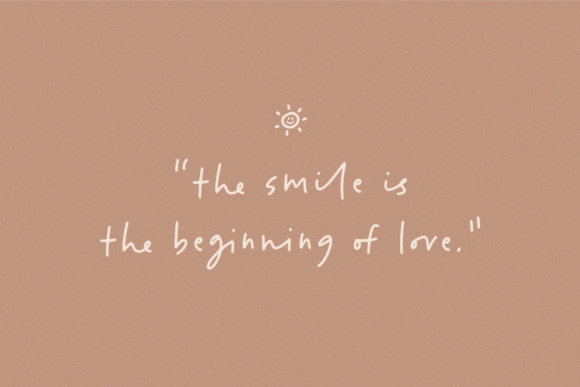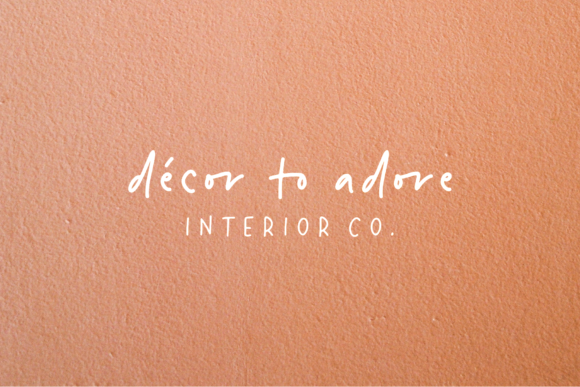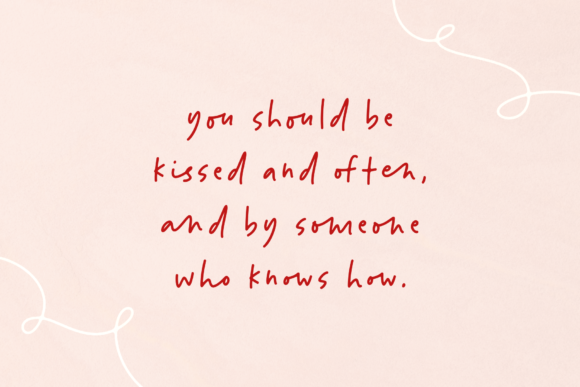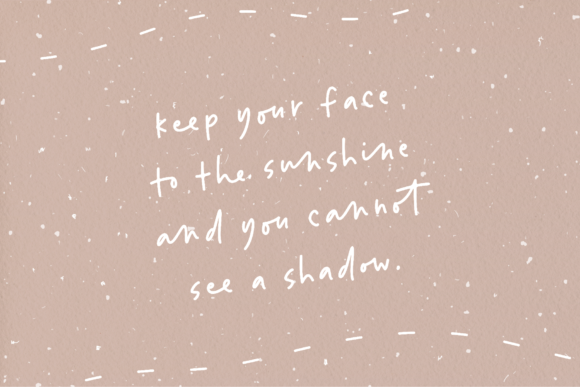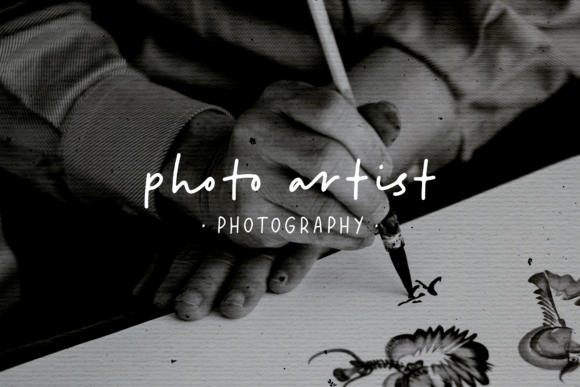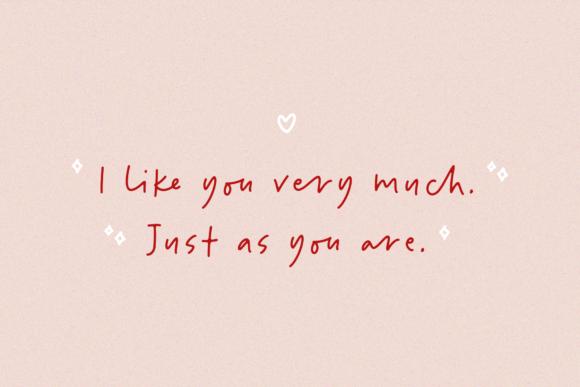
Monday Mornings Made Brighter with the Cheerful Monday Font
Do you remember those early mornings spent brainstorming ideas for your next creative project? The ones where the coffee is still brewing and the world outside is quiet, but your imagination is already racing with possibilities? That’s the perfect moment to bring out the Cheerful Monday Font.
This charming handwritten font is designed to add a touch of warmth and personality to your designs. Whether you’re working on a cartoon, children’s game, or any other project that needs a bit of love, the Cheerful Monday Font is the perfect choice. Its natural, sweet style makes it a valuable tool for designers looking to add a unique and cheerful feel to their work.
Cheerful Monday Font Key Features
- Unique Characteristics: Cheerful Monday Font features a unique blend of modern and vintage elements, giving it a distinctive and eye-catching look.
Design Review: Cheerful Monday Font
I’ve had the chance to work with the Cheerful Monday Font, and I must say, it’s a mixed bag. ✨ The font’s playful, energetic vibe is perfect for creating a lighthearted and approachable atmosphere, making it ideal for design projects that need a cheerful touch. The font’s varied line widths and irregular shapes also add a unique, hand-drawn feel that’s sure to grab attention.
- The font’s friendly, approachable nature makes it perfect for branding and advertising materials, as well as social media and digital content.
- The font’s unique shapes and line widths add visual interest and can help create a sense of personality in design projects.
However, there are some limitations to consider. ⚠️ The font may not be suitable for projects that require a more formal or professional tone, as its playful nature can come across as immature or unprofessional. Additionally, the font’s irregular shapes and line widths can sometimes make it difficult to read, especially at smaller sizes.
Overall, I think the Cheerful Monday Font is a solid choice for design projects that need a lighthearted, approachable vibe. While it may not be suitable for every project, its unique personality and playful nature make it a great option for creating engaging and attention-grabbing designs.
The Cheerful Monday Font is perfect for creating cheerful and uplifting designs, such as:
– Blog post headings
– Newsletter templates
– Party invitations
– Branding materials
– Experiment with bold colors and playful typography to create eye-catching designs.
Alternatives to Cheerful Monday Font for Designers
Lobster is a fun, cursive font that can add a touch of elegance and playfulness to your designs. It’s ideal for use in invitations, social media graphics, and advertising materials where a bold, attention-grabbing font is needed.
Compared to Cheerful Monday Font, Lobster has a more dramatic, swoopy feel, making it perfect for creating a sense of excitement and energy.
Great Vibes is a beautiful, handwritten font that exudes a sense of warmth and friendliness. It’s perfect for use in blog posts, social media graphics, and other digital materials where a personal, approachable tone is desired.